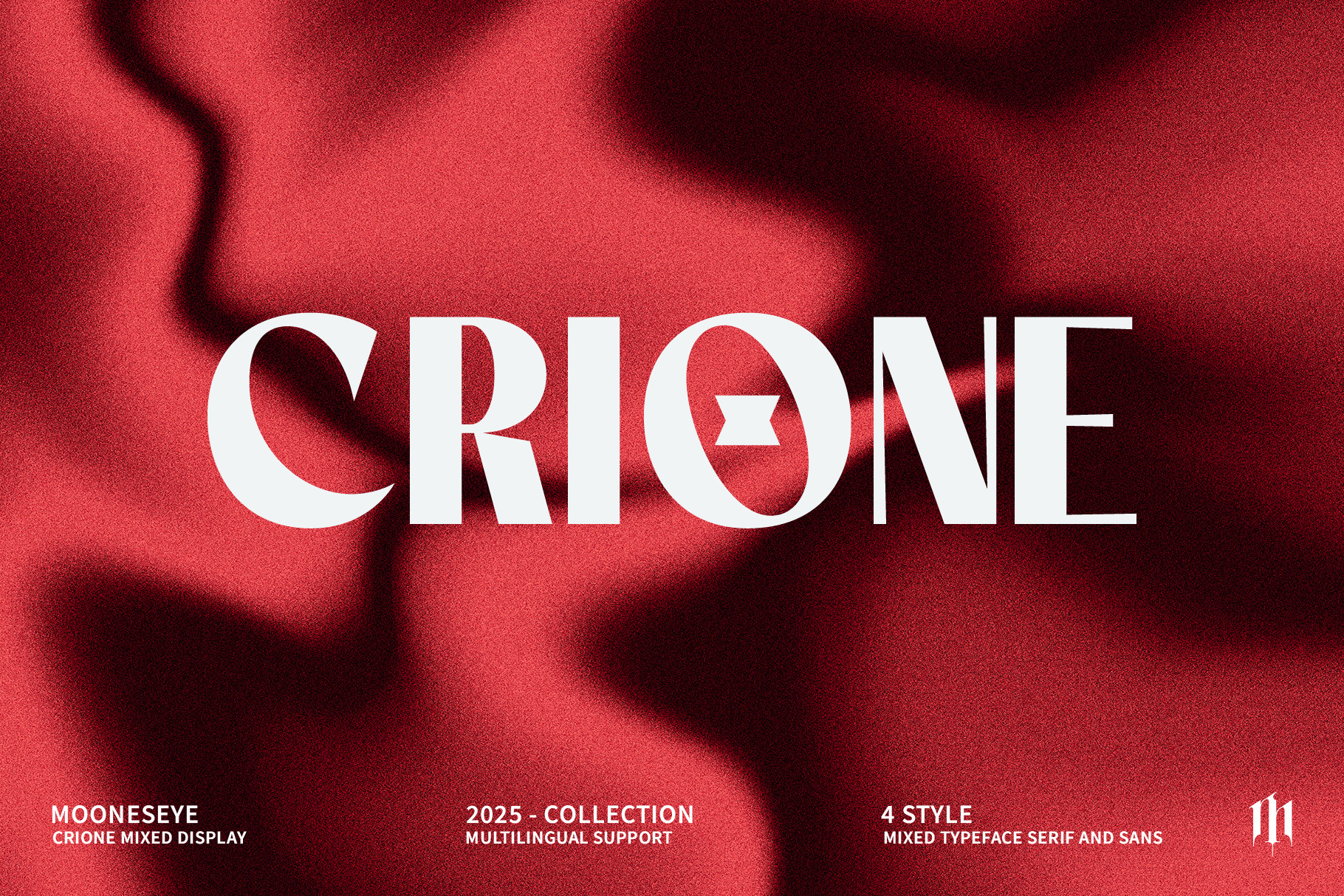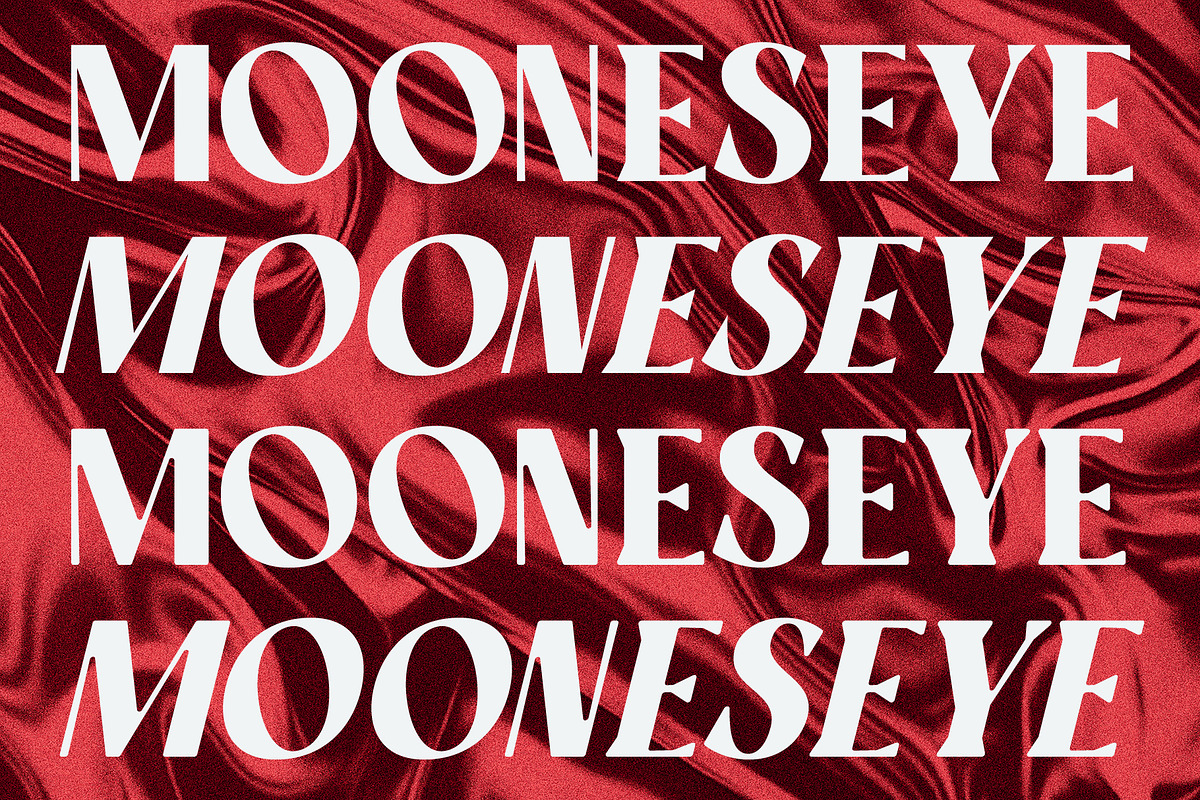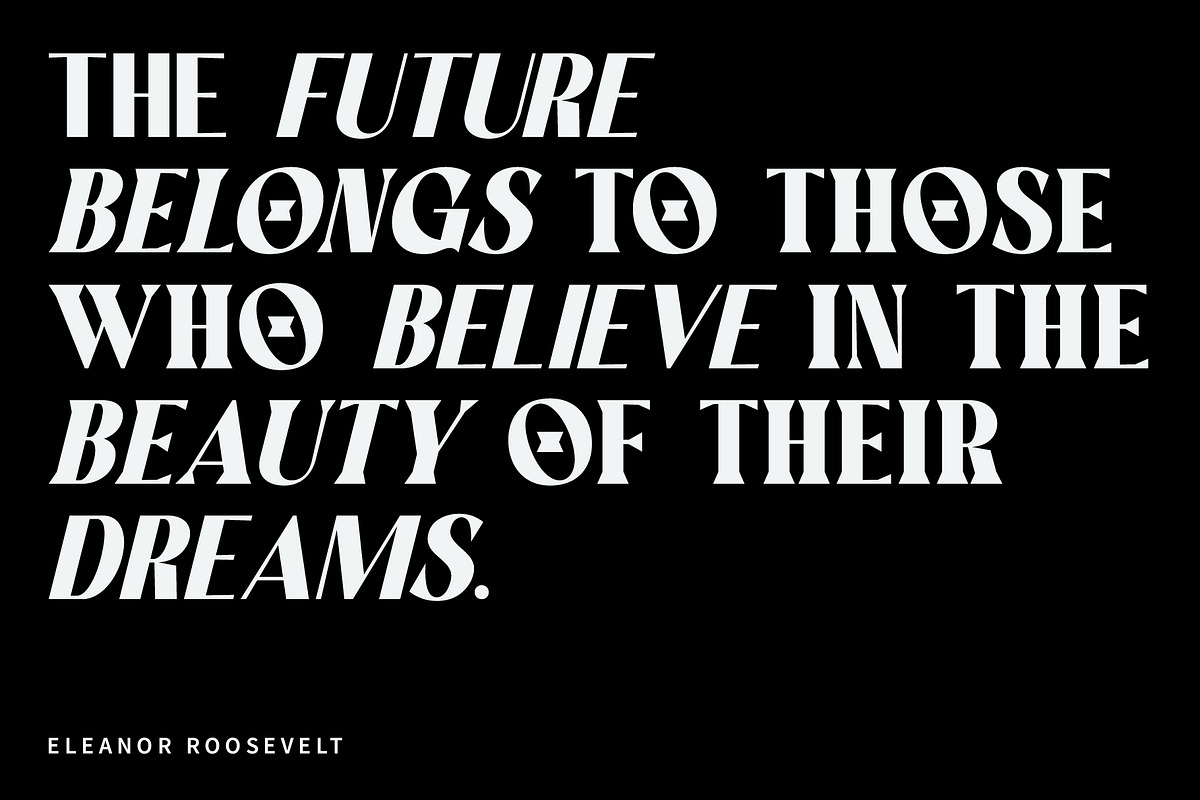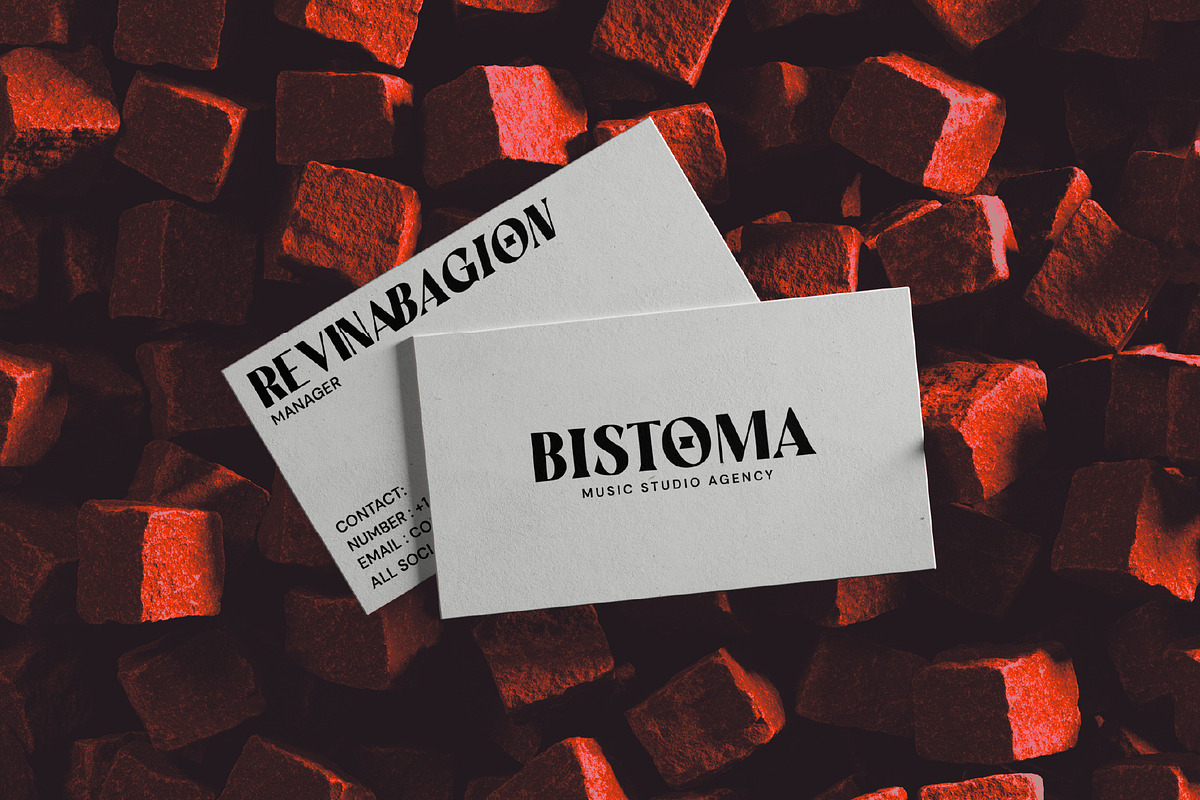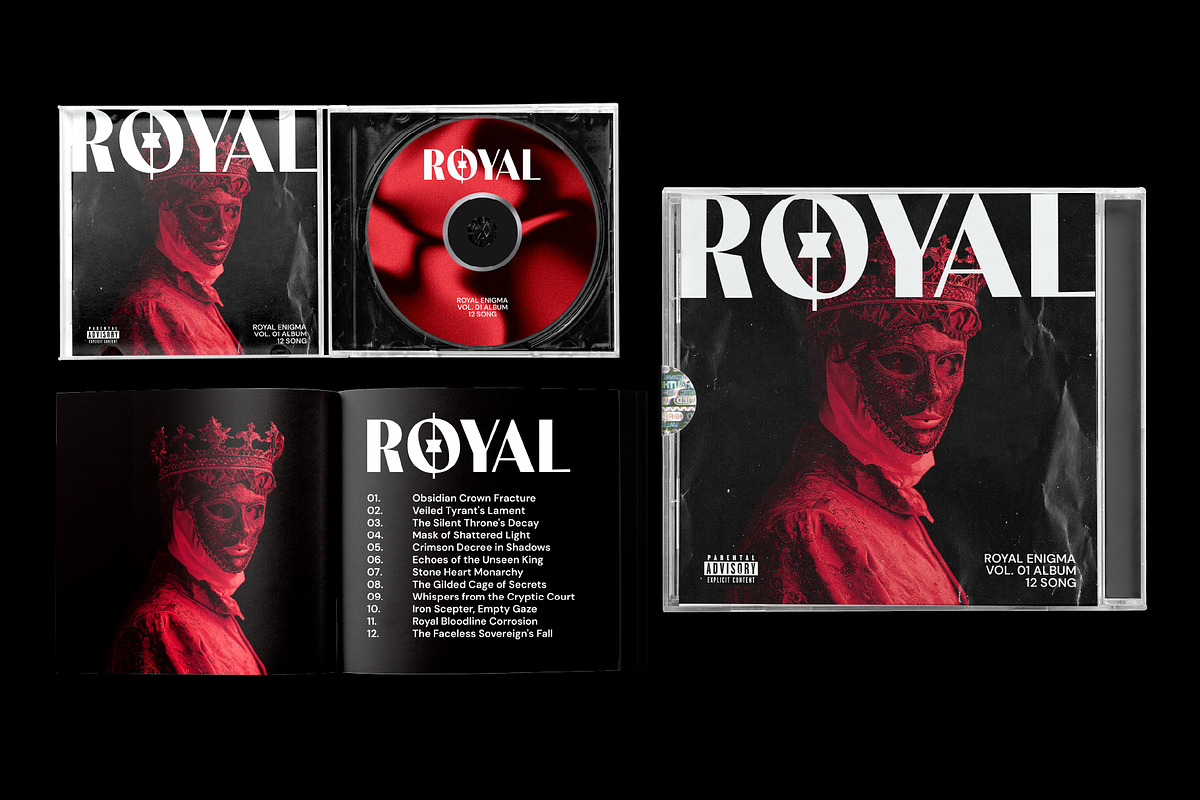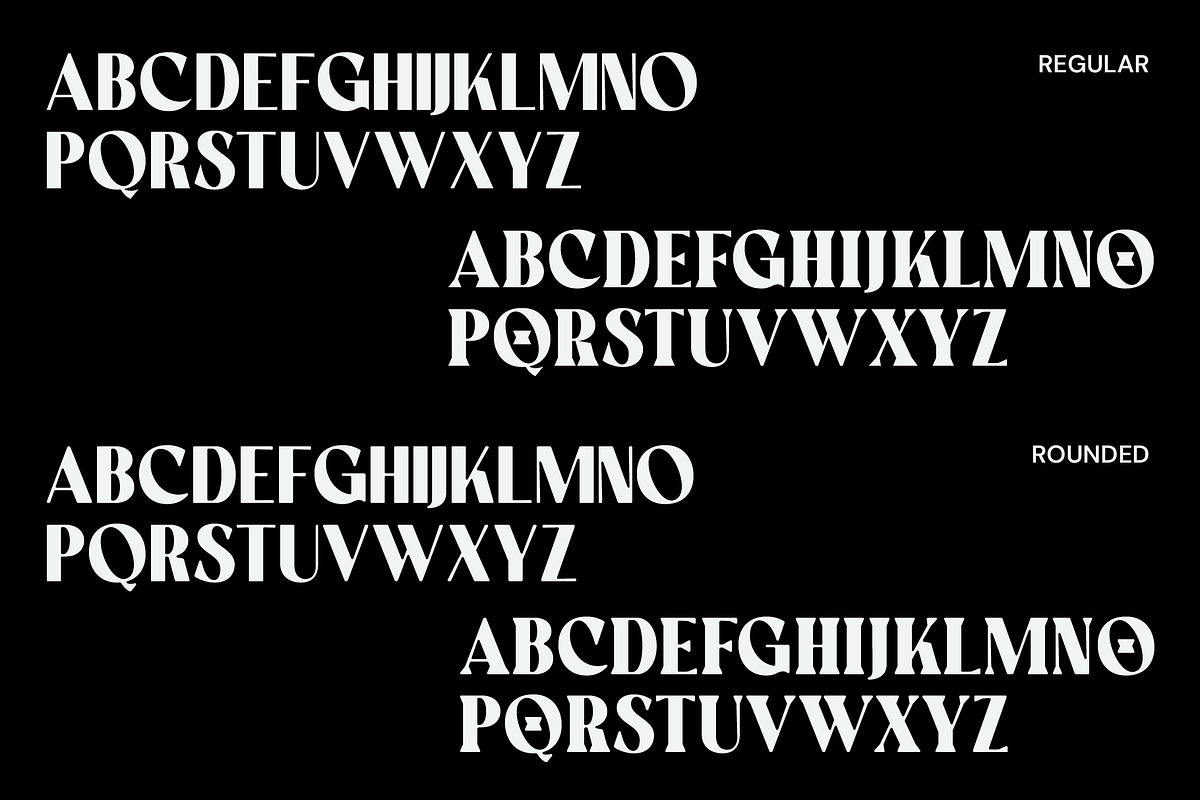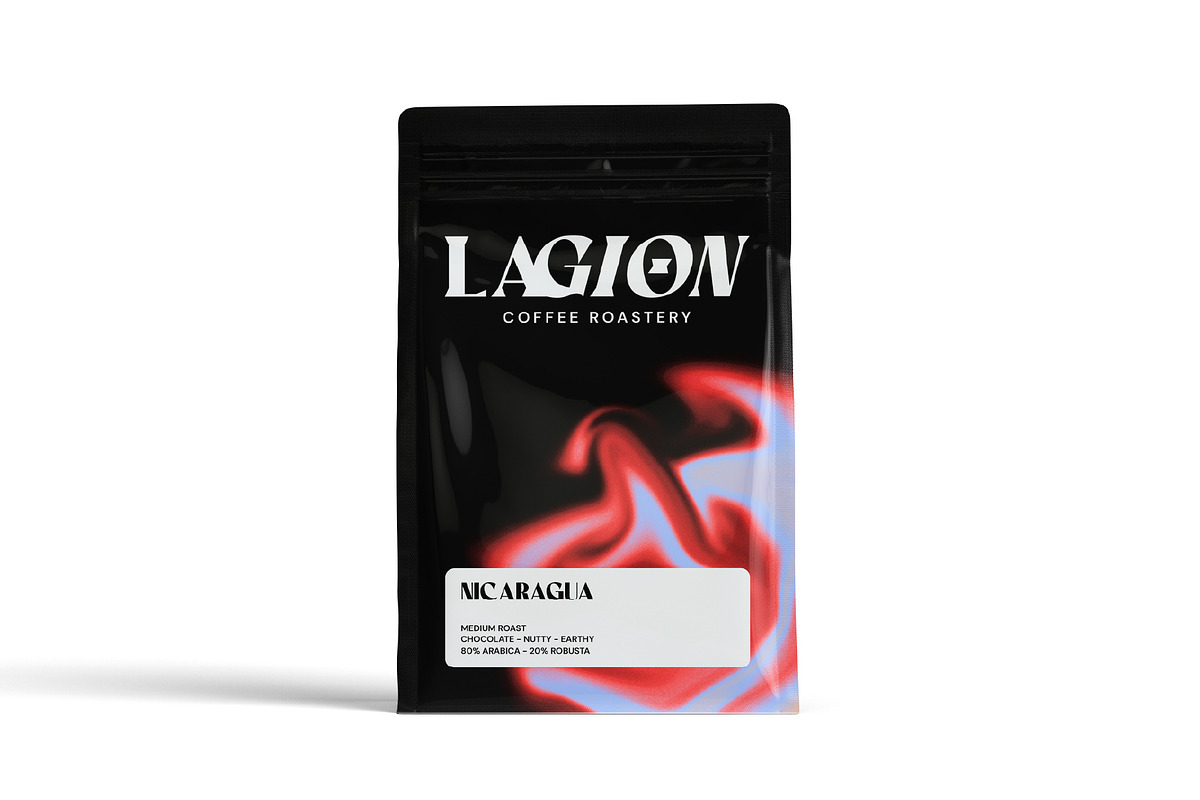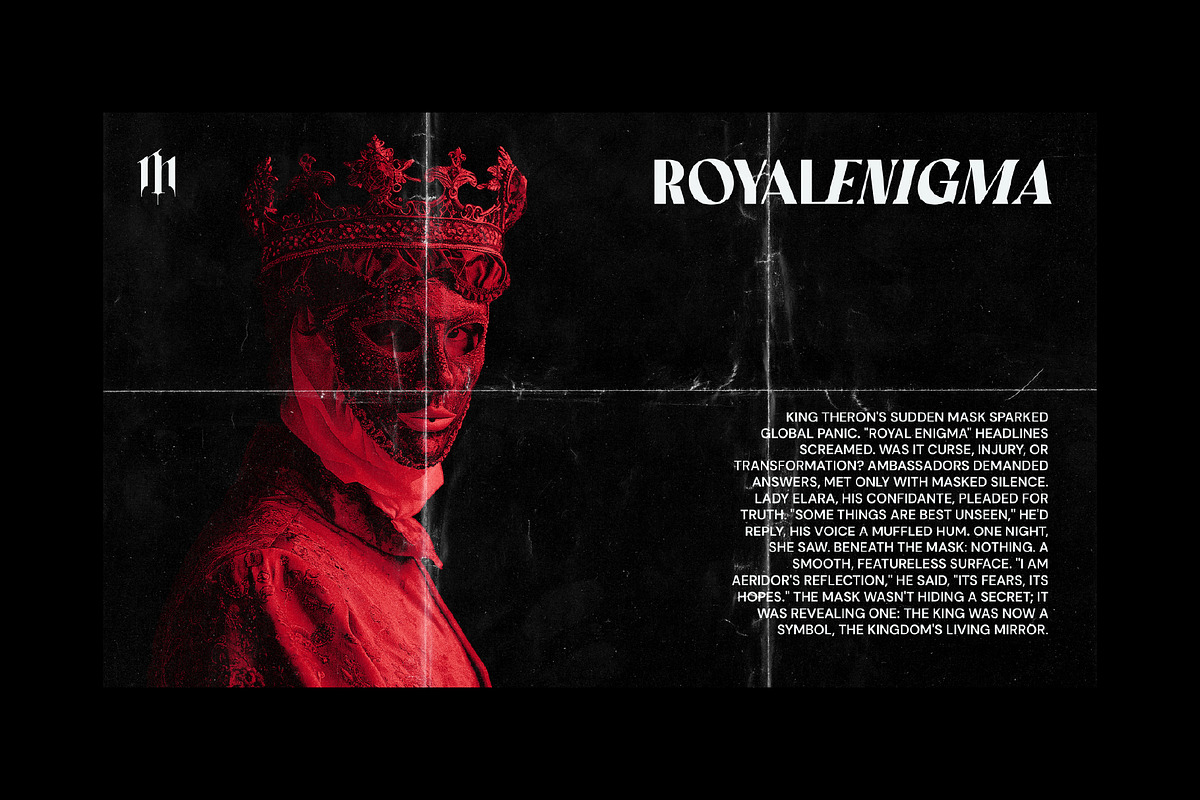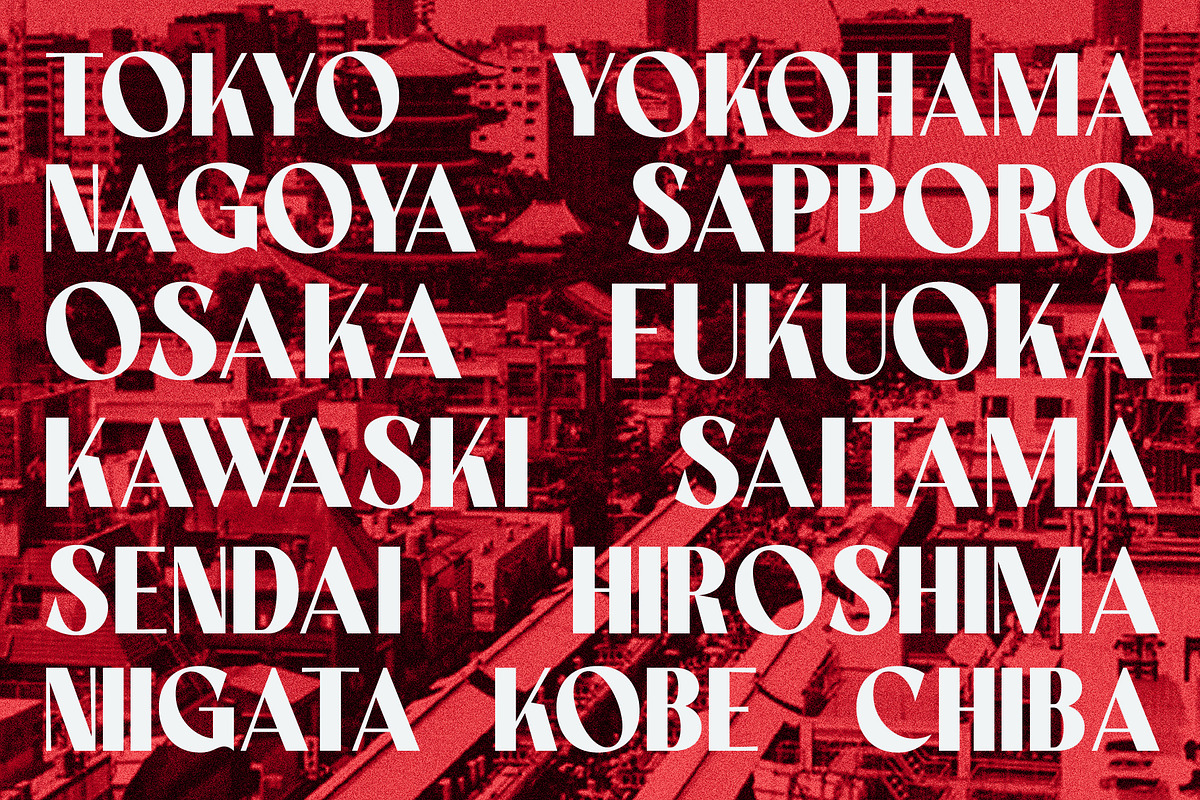
Crione - Sans Serif Display Font
Elevate your design projects with CRIONE, a sophisticated and elegant display font that blends classic serif charm with a bold, modern edge. With its stunning high-contrast strokes and unique, geometric forms, CRIONE is the perfect choice for creating a premium and luxurious brand identity.
Whether you're designing for high-end fashion, beauty brands, or an exclusive event, this font instantly adds a touch of class and distinction. The standout character—an 'O' with a captivating star-like cutout—makes your logos and headlines truly unforgettable.
CRIONE isn't just one font; it's a versatile toolkit. With both Regular and Rounded styles included, you can choose between sharp, crisp elegance and a softer, more approachable feel. Make a statement and let your brand shine with this exquisite typeface.
- Mixed Typeface: A stunning blend of Serif and Sans-Serif styles.
- 4 Style Options: Regular and Rounded, plus their respective italics (implied).
- Unique Letterforms: Special characters like the iconic 'O' for standout logos.
- High Contrast: Creates a sophisticated, high-end visual impact.
- Versatile for Display: Perfect for headlines, titles, and logotypes.
Suitable For
- Luxury Brand Logos & Visual Identity
- High-Fashion Magazine Headlines
- Modern Wedding Invitations & Stationery
- Cosmetics & Skincare Product Packaging
- Editorial & Blog Titles
- Elegant Social Media & Pinterest Graphics
- High-End Website Banners
Unleash the power of luxury and elegance in your designs with CRIONE!